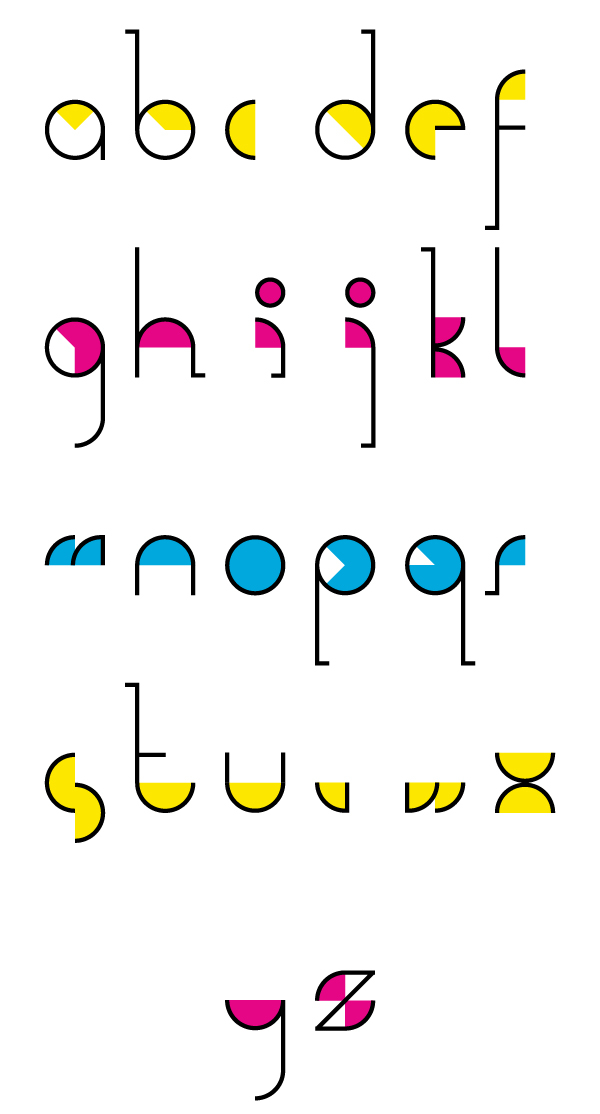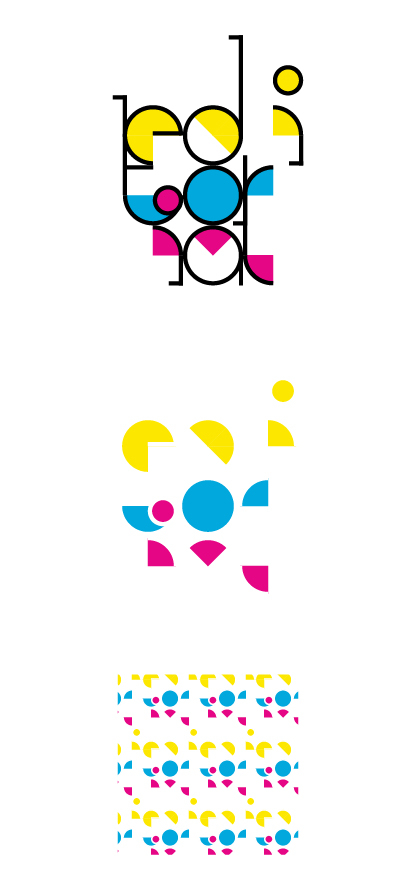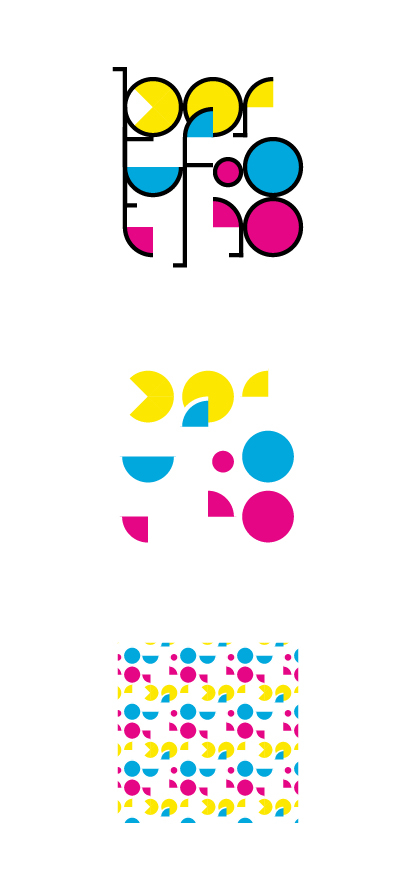
foufou type
This type face was designed for identity purpose. It's main feature is to generate pattern which identifies particular sections.
Designer: Karol Maciej Siwek
Publisher: Karol Maciej Siwek